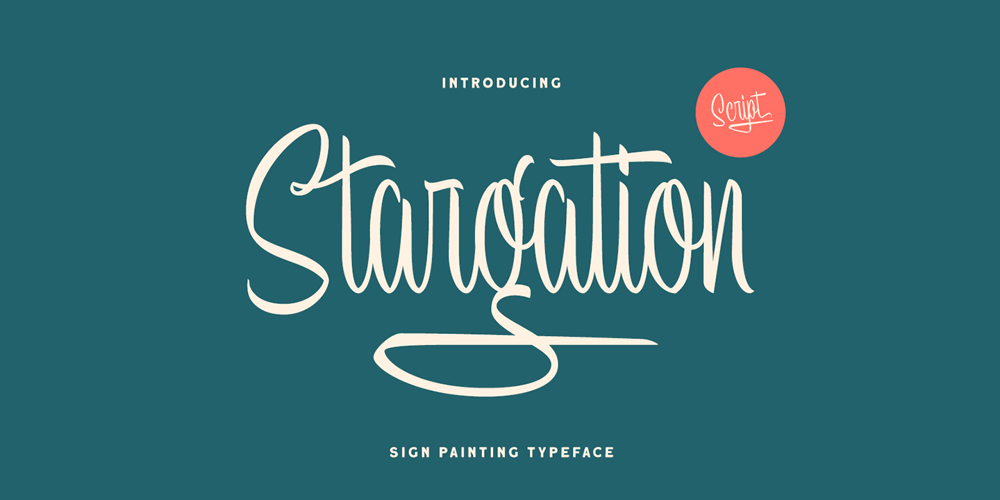
Stargation Font Family was designed by Hendry Juanda and published by Letterhend. Stargation contains 1 styles and family package options. Stargation is a display script that has unique anatomy with thin and condensed glyhps which brings out a casual and playful feel. Works well to be applied to logos and the other various formal forms such as invitations, labels, magazines, books, greeting / wedding cards, packaging, fashion, make up, stationery, novels, labels or any type of advertising purpose.Features : uppercase & lowercase numbers and punctuation multi-lingual support ligatures alternates swashes PUA encoded We highly recommend using a program that supports OpenType features and Glyphs panels like many of Adobe apps and Corel Draw, so you can see and access all Glyph variations.Email us to letterhend@gmail.com if you need something! Happy Designing!